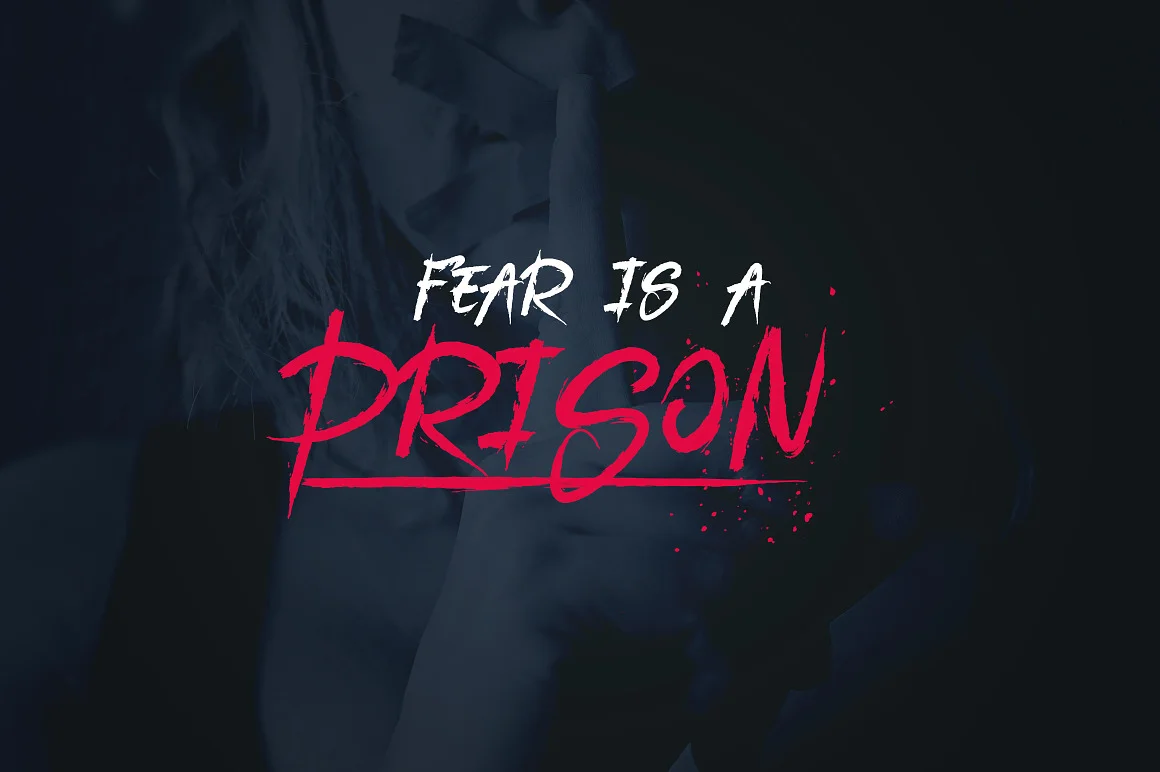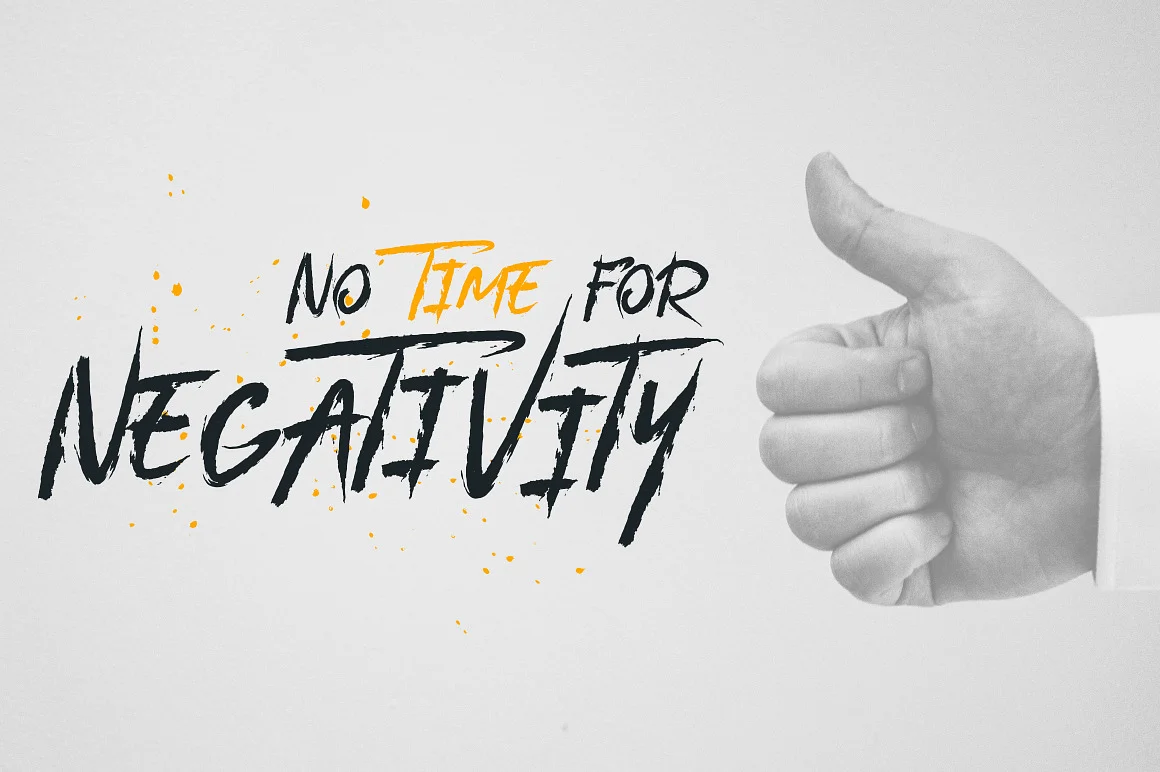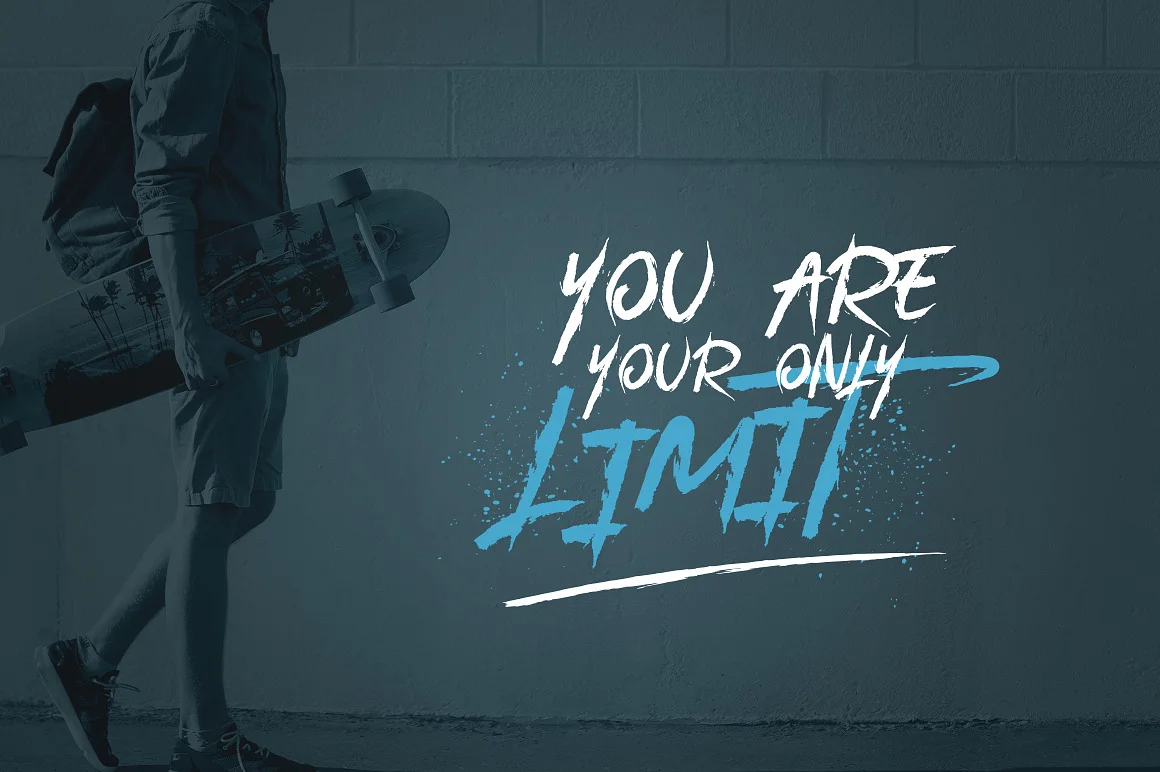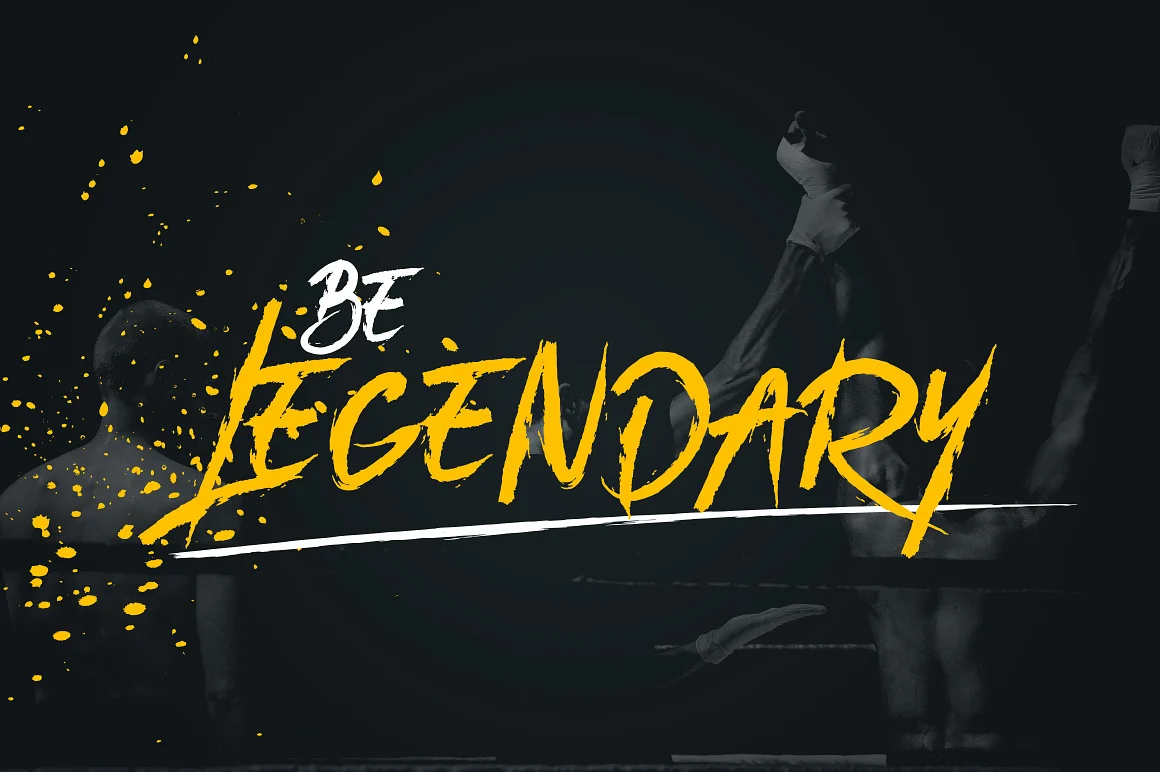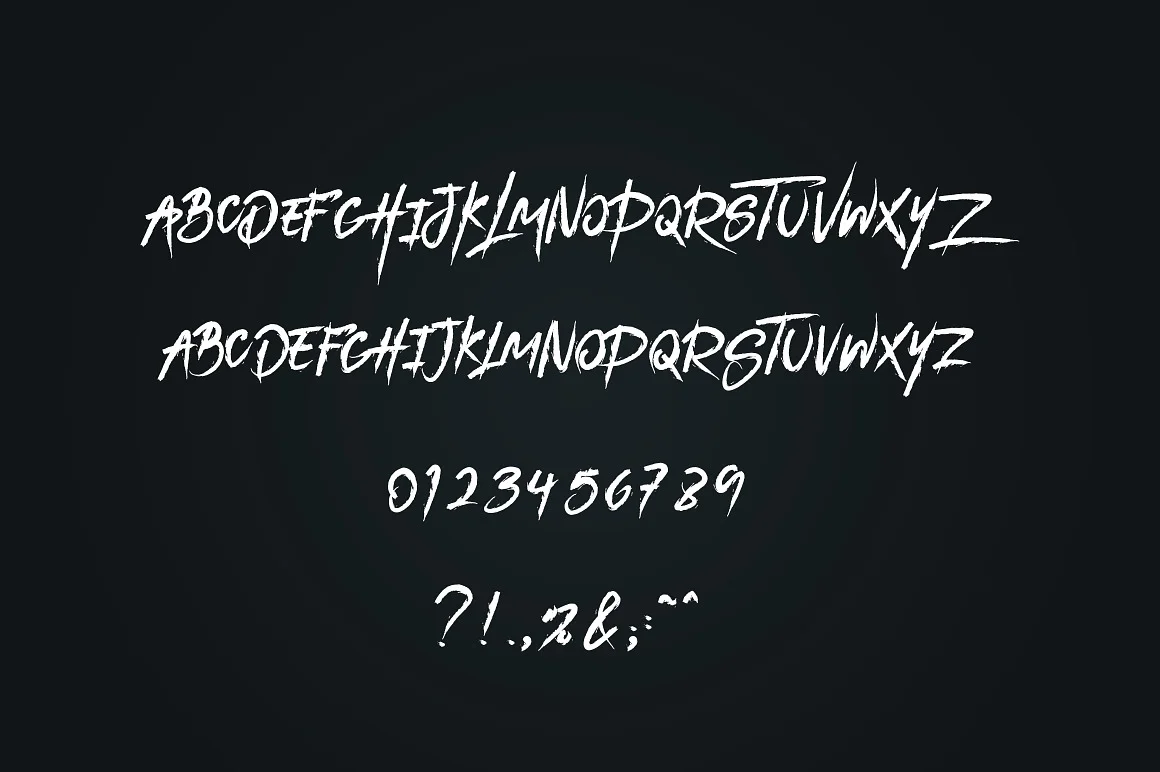
Dark Heart Brush Font + Extras
A good typeface communicates tone before a single word is read. Dark Heart Brush + Extras achieves this through distinctive character without sacrificing readability. The typeface brings a loose, expressive brush sensibility to a broad range of creative disciplines, with visual harmony and precise spacing that holds up whether the work is print-first or screen-first.
In practice, Dark Heart Brush + Extras proves particularly effective for craft brewery labels, product labels, bohemian packaging, advertising campaigns, lifestyle brands. Designers reaching for it find that the type decisions feel resolved rather than laboured — a useful quality when client timelines are tight.
Ink traps at stroke joins simulate the natural pooling of paint or ink, adding textural depth without the need for artificial distressing. The variation in stroke width across individual letterforms gives compositions a liveliness that purely digital type often lacks.
The range of applications extends to editorial layouts, web design, signage systems, artisan food labels. That breadth is deliberate: the proportions and spacing were stress-tested across a wide range of mock briefs before the typeface was finalised.
Art directors commissioning type-led campaigns find Dark Heart Brush + Extras a reliable choice for projects that demand both personality and restraint. The design avoids the self-conscious quirkiness that dates quickly, settling instead for considered distinctiveness that holds up over time.